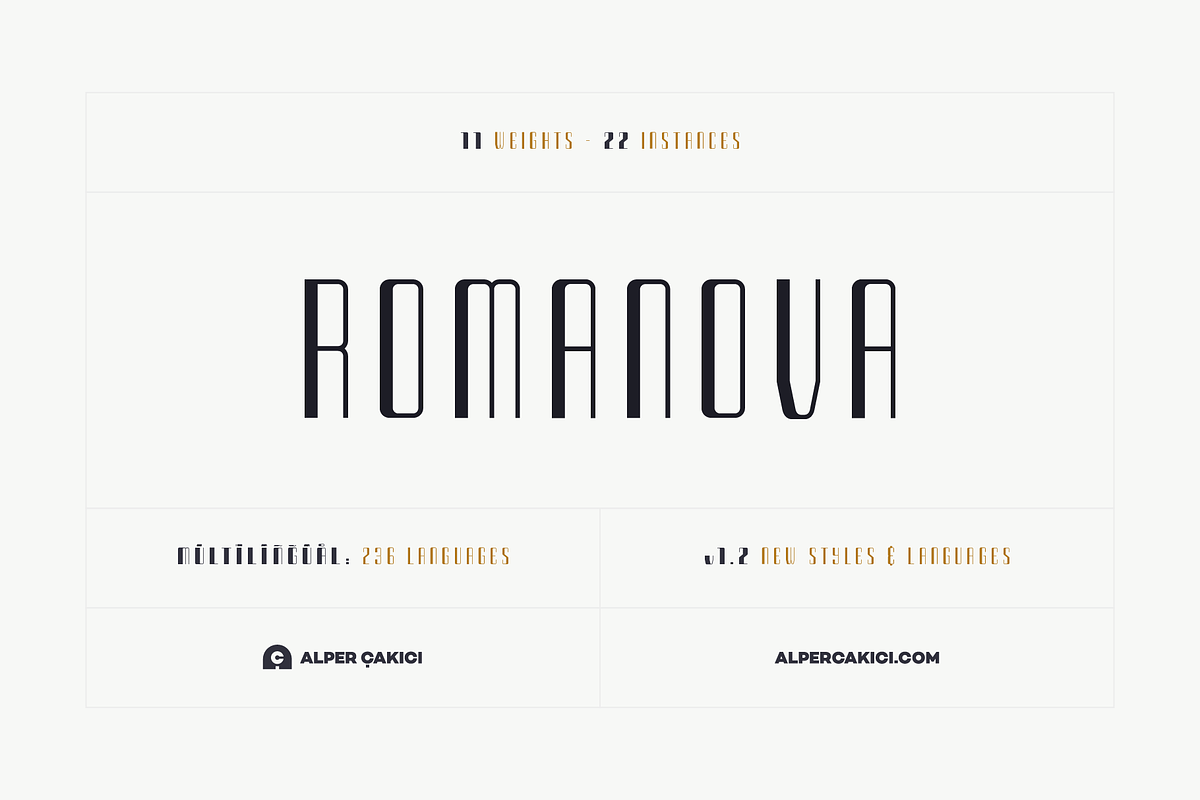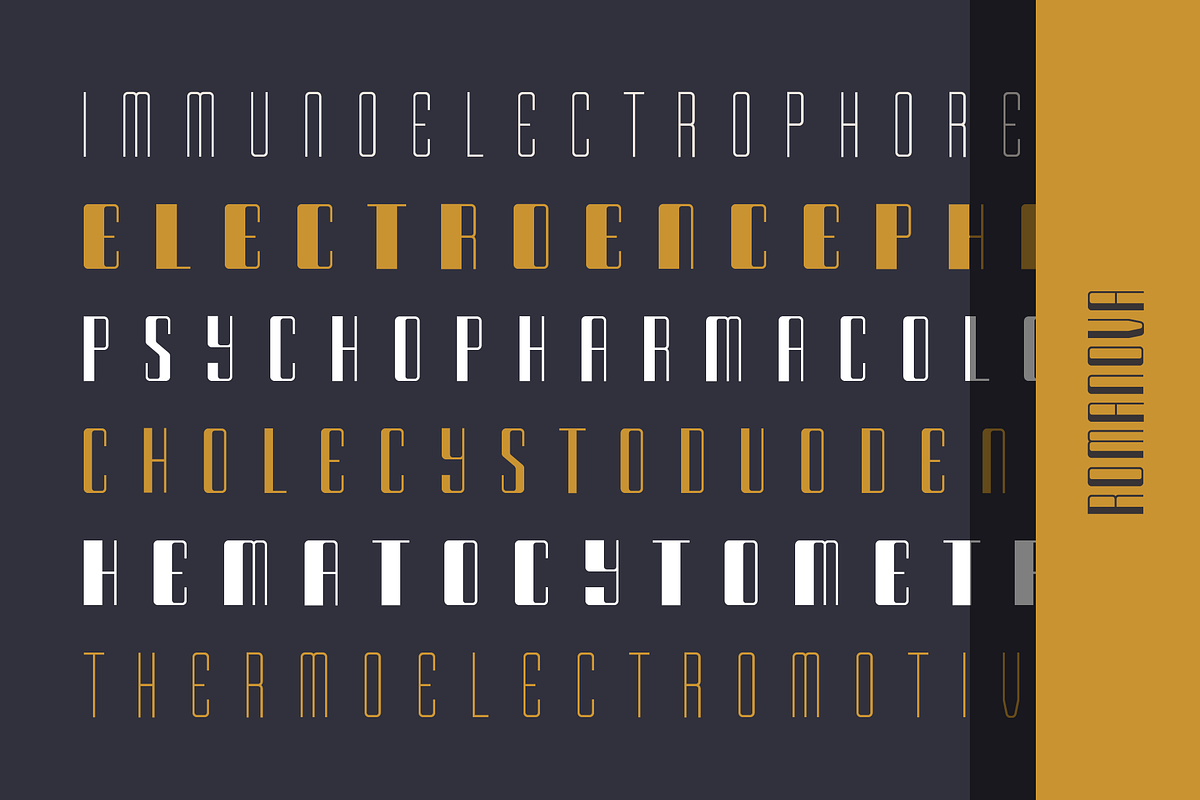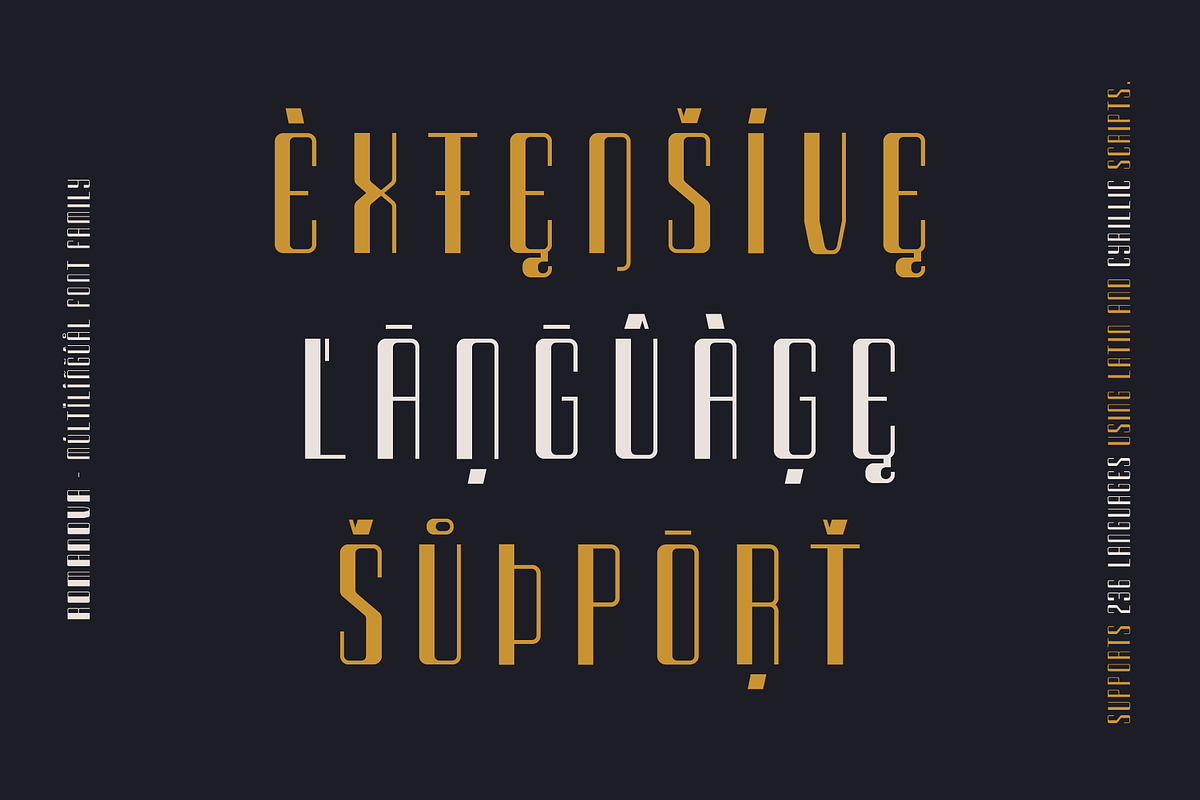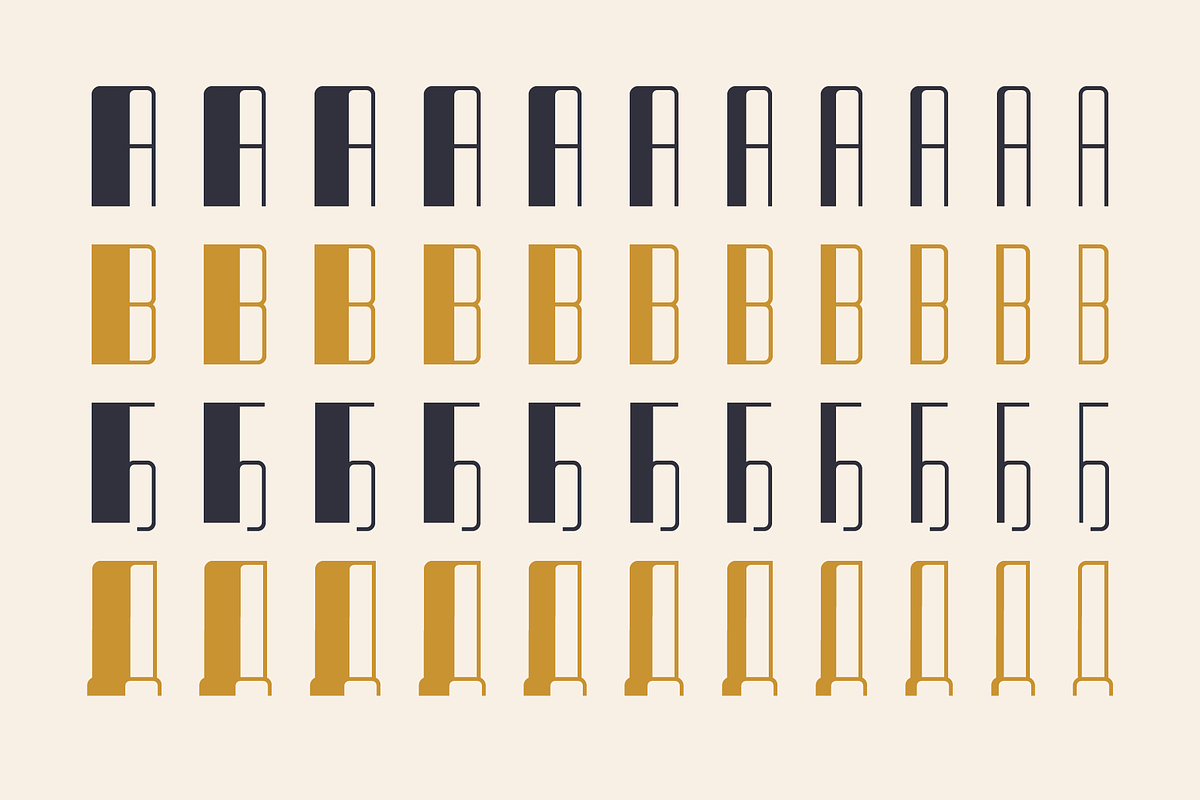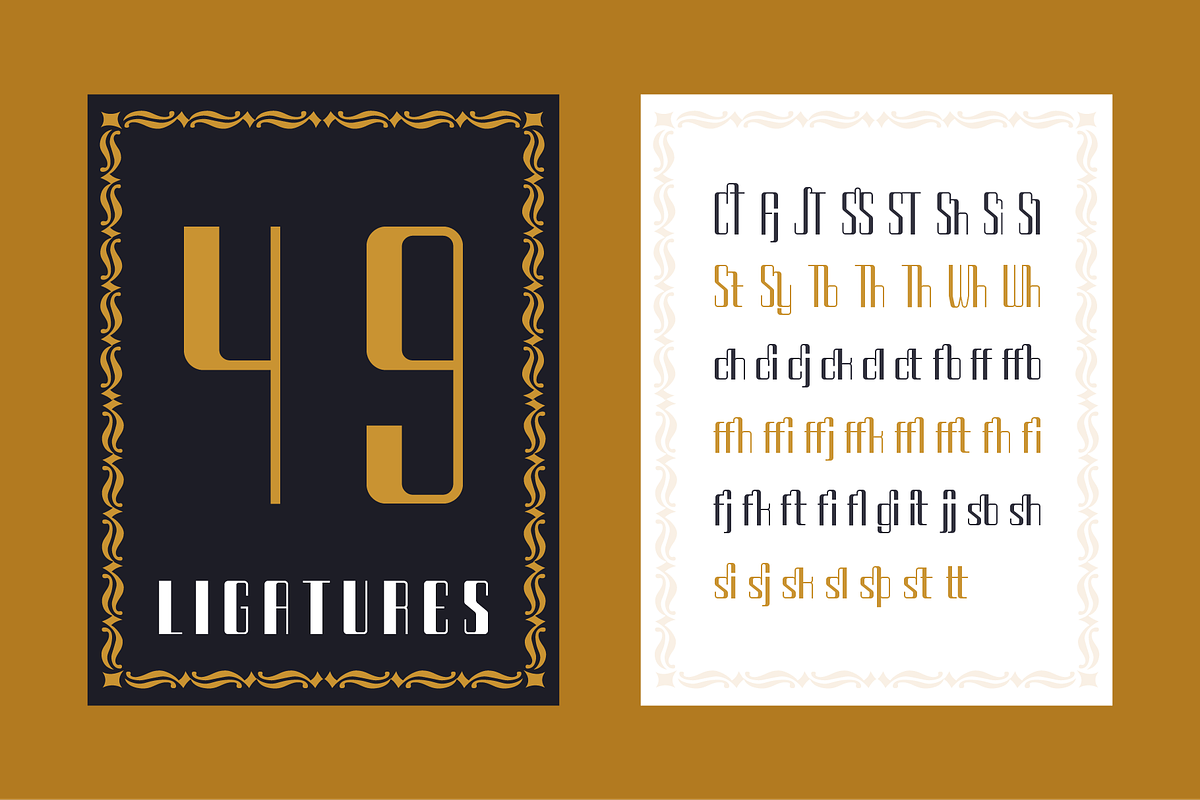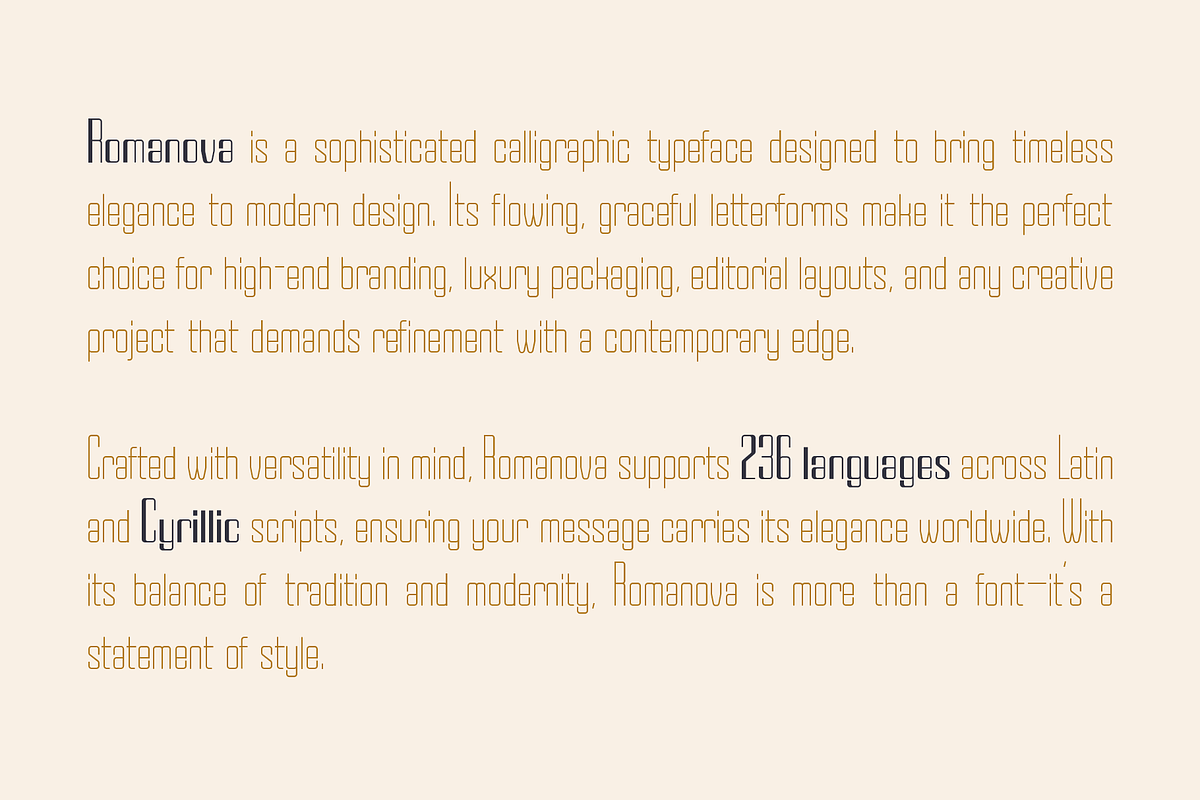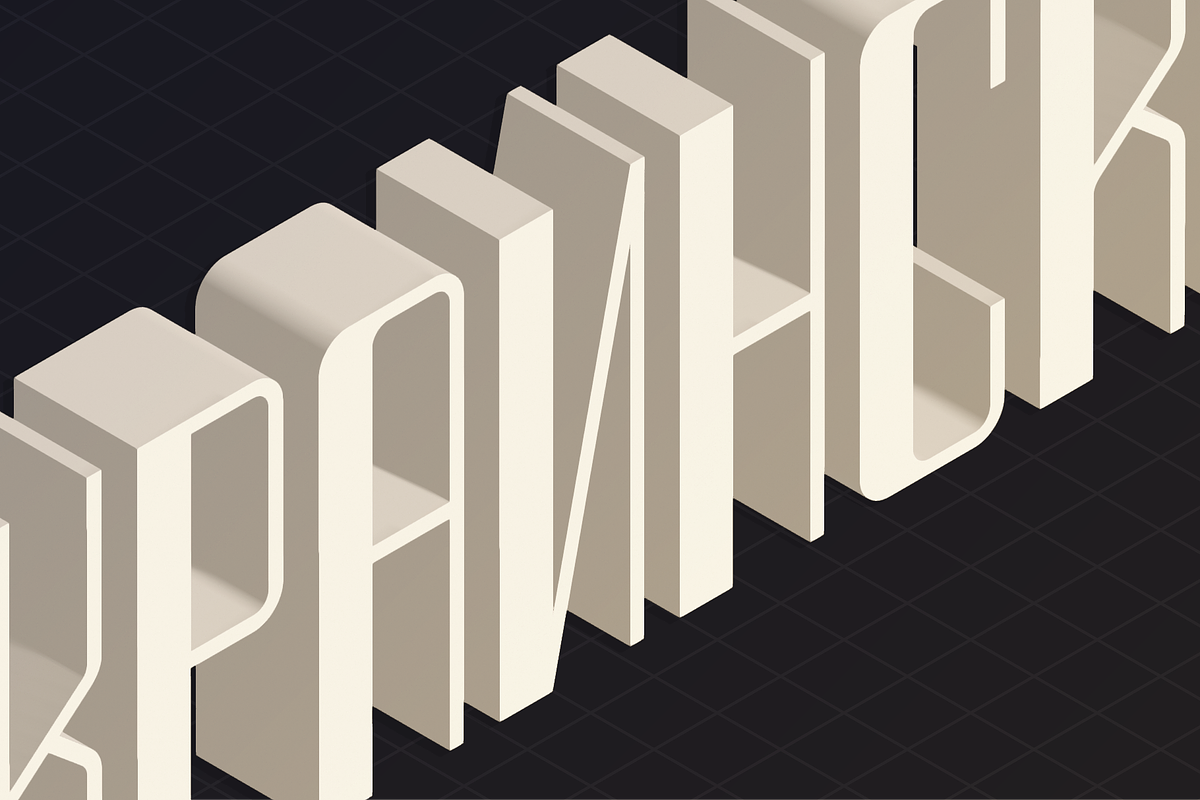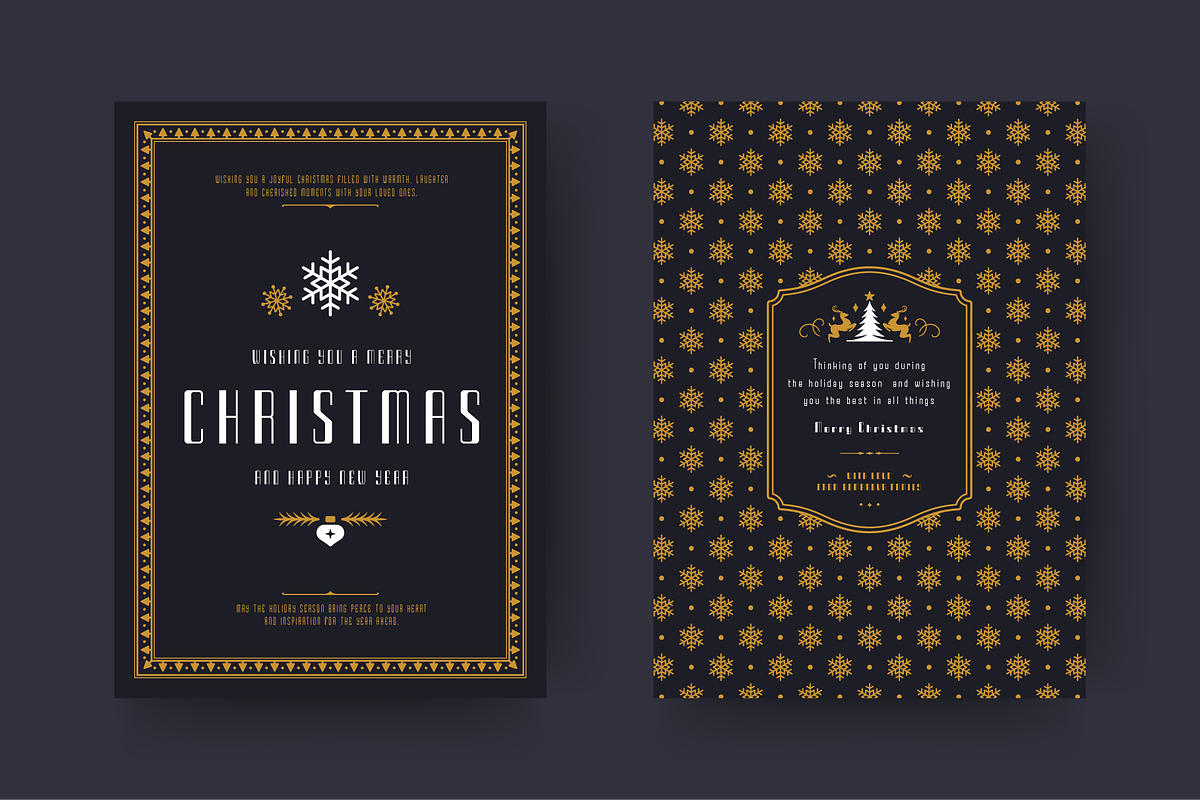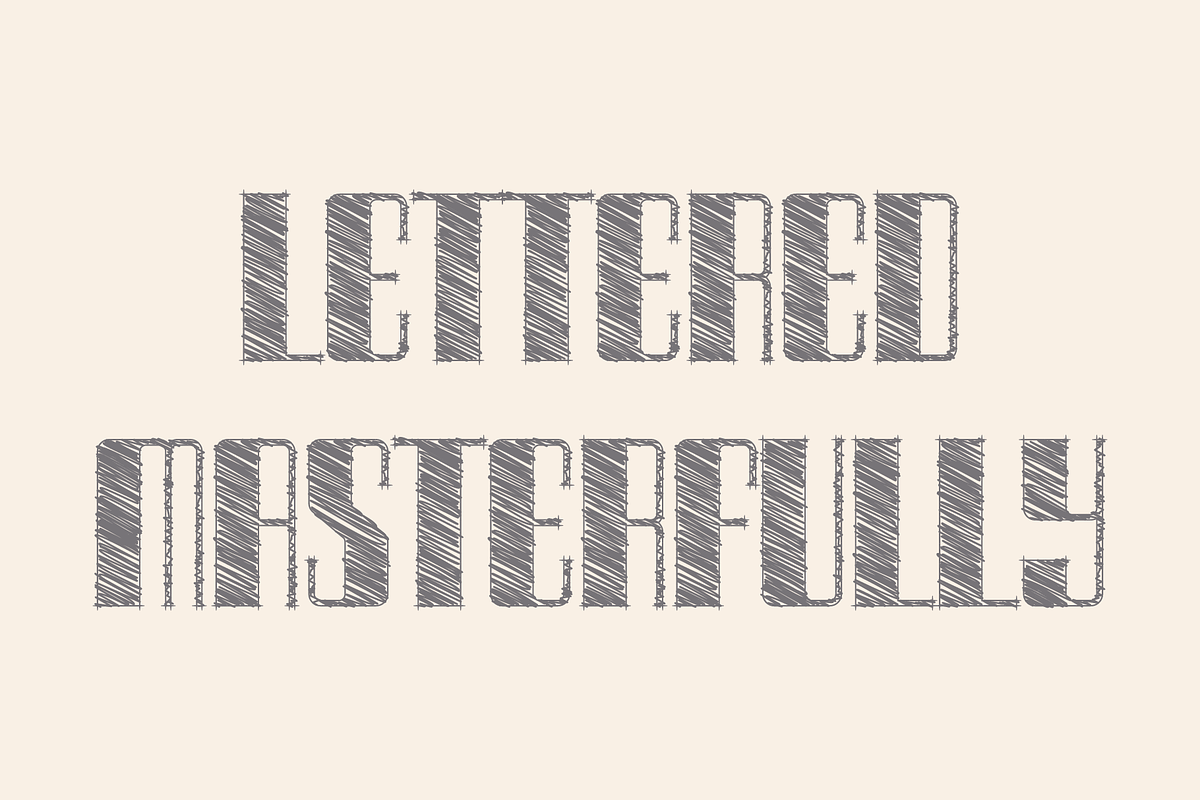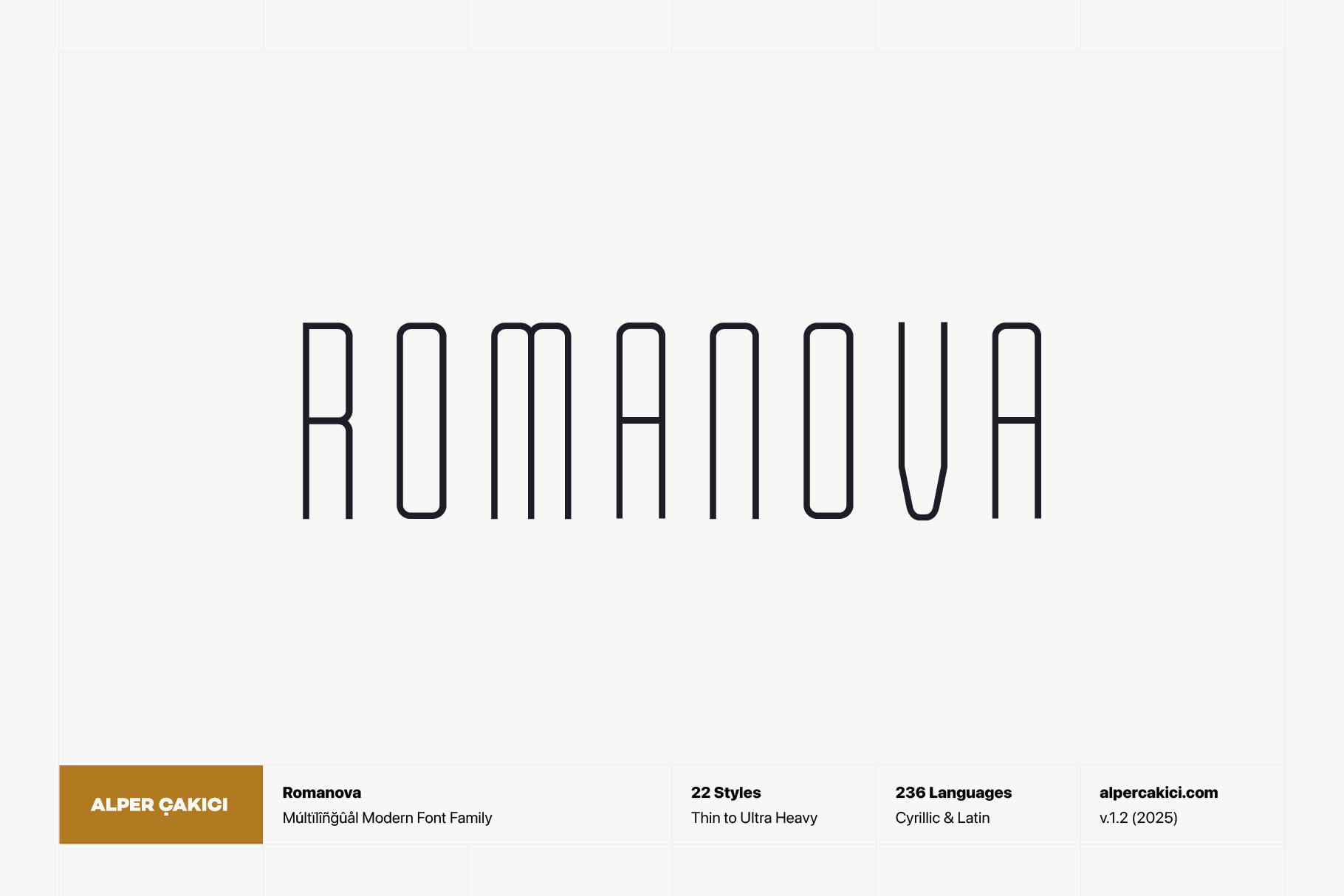
Romanova – A Luxury Font Family
🌌 Romanova – A Luxury Geometric Typeface
Romanova is a sleek and elegant typeface crafted with geometric precision and luxurious curves. Designed to balance modern minimalism with timeless sophistication, it is ideal for high-end branding, fashion editorials, packaging, and creative projects that demand both style and readability. Whether you’re building a luxury brand identity, designing a premium magazine spread, or creating digital experiences that need refined clarity, Romanova brings elegance and professionalism to every word.
🌟 Why Choose Romanova?
Luxury & Elegance: A geometric sans serif with smooth curves and a refined aesthetic. Extended Latin & Cyrillic: Built for truly global communication. Professional Quality: Carefully spaced, balanced, and optimized for print and digital use. Versatile Applications: Perfect for logos, packaging, fashion branding, magazines, websites, and editorial projects. Premium Craftsmanship: Designed with attention to detail across all 22 styles, from Thin to Ultra Heavy. Free Updates & Support: Always kept up to date, with designer support included.
Romanova supports 236 languages, including both Extended Latin and Cyrillic character sets. Supported Languages: Abkhazian • Acehnese • Adangme • Adyghe • Afrikaans • Albanian • Aleut • Angika • Aragonese • Arapaho • Aromanian • Asu • Avaric • Awadhi • Aymara • Azerbaijani • Balinese • Bashkir • Basque • Belarusian • Bemba • Bena • Bini • Bislama • Bosnian • Breton • Buginese • Bulgarian • Cajun French • Catalan • Cebuano • Chamorro • Chechen • Cheyenne • Chiga • Chuukese • Chuvash • Colognian • Comorian • Cornish • Corsican • Croatian • Czech • Dakota • Danish • Dargwa • Dazaga • Dogrib • Dutch • Efik • Ekajuk • Embu • English • Erzya • Estonian • Faroese • Fijian • Filipino • Finnish • Fon • French • Friulian • Galician • Ganda • German • Gilbertese • Gorontalo • Guarani • Gusii • Gwichʼin • Haitian Creole • Herero • Hiligaynon • Hungarian • Hupa • Iban • Ibibio • Icelandic • Ido • Iloko • Inari Sami • Indonesian • Ingush • Interlingua • Irish • Italian • Javanese • Jju • Jola-Fonyi • Kabardian • Kabuverdianu • Kachin • Kalaallisut • Kalenjin • Kalmyk • Kamba • Kanuri • Karachay-Balkar • Karelian • Kazakh • Khasi • Kikuyu • Kildin Sámi • Kimbundu • Kinyarwanda • Klingon • Komi • Koro • Kuanyama • Kumyk • Kurukh • Kyrgyz • Ladino • Latin • Latvian • Lezghian • Limburgish • Lithuanian • Lojban • Louisiana Creole • Lower Sorbian • Lozi • Luba-Lulua • Lule Sami • Lunda • Luo • Luxembourgish • Luyia • Macedonian • Machame • Madurese • Magahi • Makasar • Makhuwa-Meetto • Makonde • Malagasy • Malay • Maltese • Manx • Māori • Mari • Marshallese • Mende • Meru • Minangkabau • Mirandese • Mizo • Mohawk • Moksha • Mongolian • Morisyen • Mossi • Mvskoke • Nauru • Ndonga • Neapolitan • Newari • Ngambay • Nias • Niuean • Nogai • North Ndebele • North Sámi • Northern Sotho • Norwegian Bokmål • Norwegian Nynorsk • Nyanja • Nyankole • Occitan • Oromo • Ossetic • Palauan • Pampanga • Pangasinan • Papiamento • Pite Sámi • Polish • Portuguese • Quechua • Rapanui • Rarotongan • Romanian • Romansh • Rombo • Rundi • Russian • Rwa • Sakha • Samburu • Sandawe • Sango • Sangu • Sardinian • Scots • Scottish Gaelic • Sena • Serbian • Shambala • Shan • Shona • Siksiká • Skolt Sami • Slovak • Slovenian • Soga • Somali • Soninke • South Ndebele • South Sámi • Southern Altai • Southern Sotho • Spanish • Sranan Tongo • Sukuma • Sundanese • Swahili • Swati • Swedish • Swiss German • Tahitian • Taita • Tajik • Taroko • Tatar • Teso • Tetum • Timne • Tok Pisin • Tsonga • Tswana • Tumbuka • Turkish • Turkmen • Tuvalu • Tuvinian • Udmurt • Ukrainian • Umbundu • Ume Sámi • Upper Sorbian • Uzbek • Vunjo • Walloon • Waray • Welsh • Wolastoqey • Wolof • Xhosa • Yemba • Zaza • Zulu • Zuni